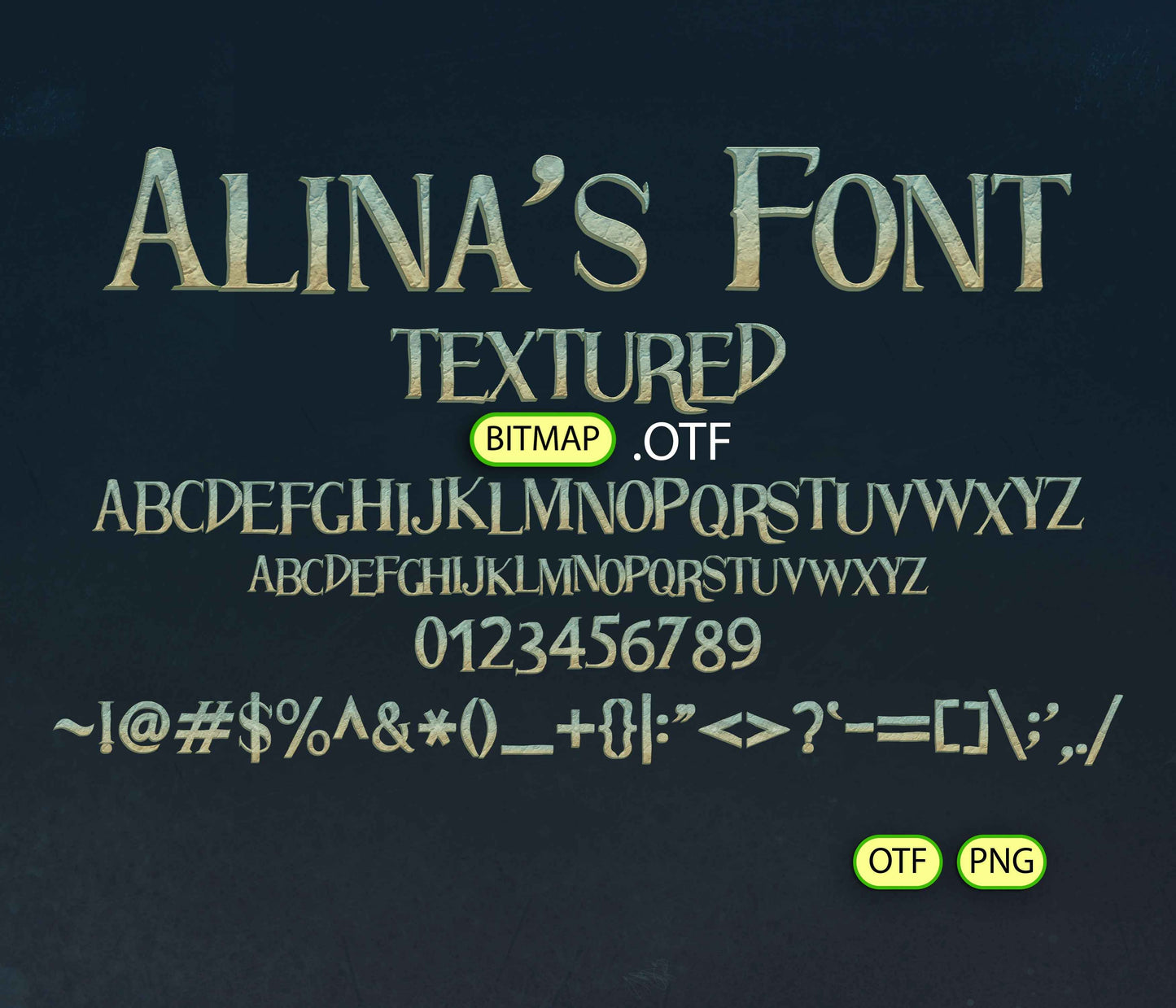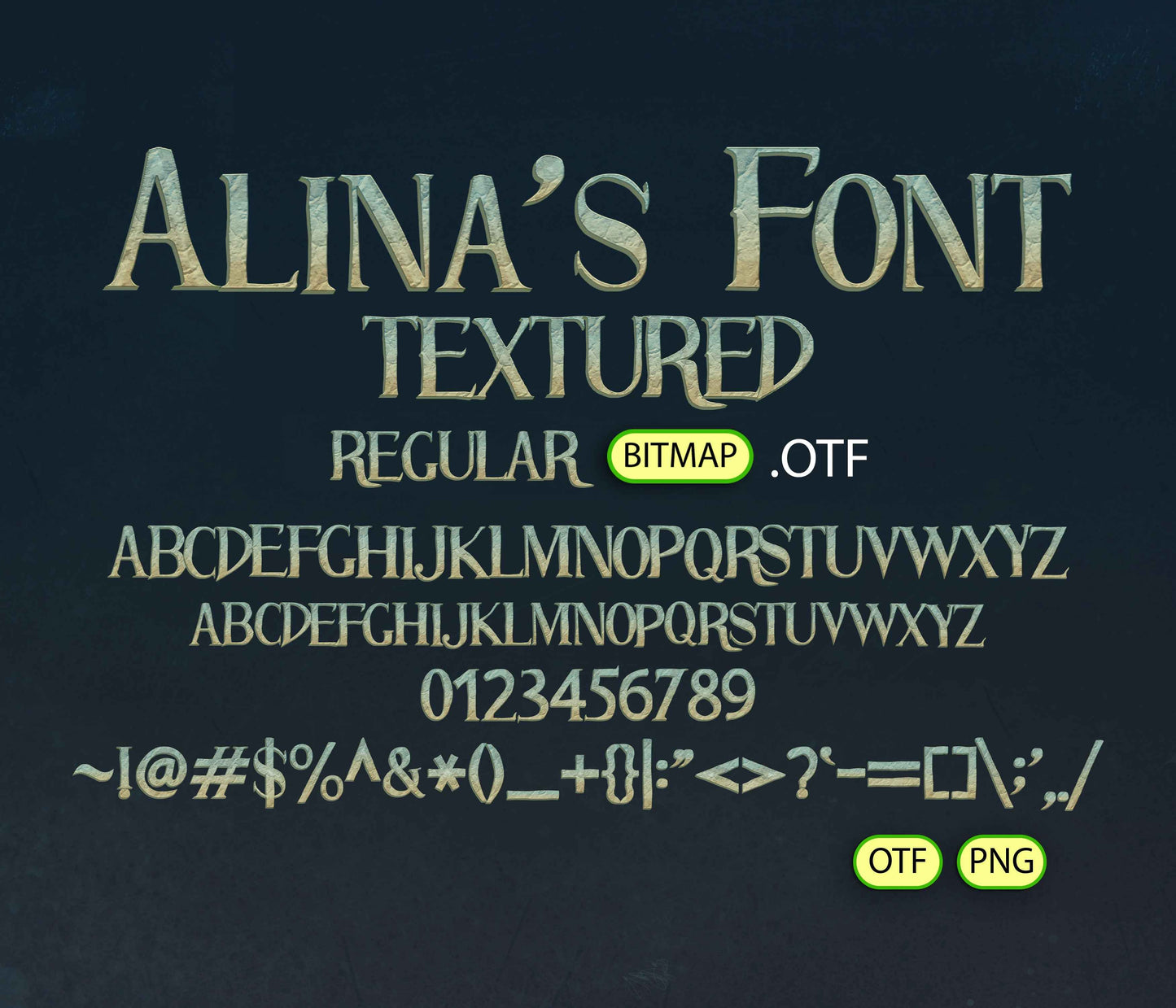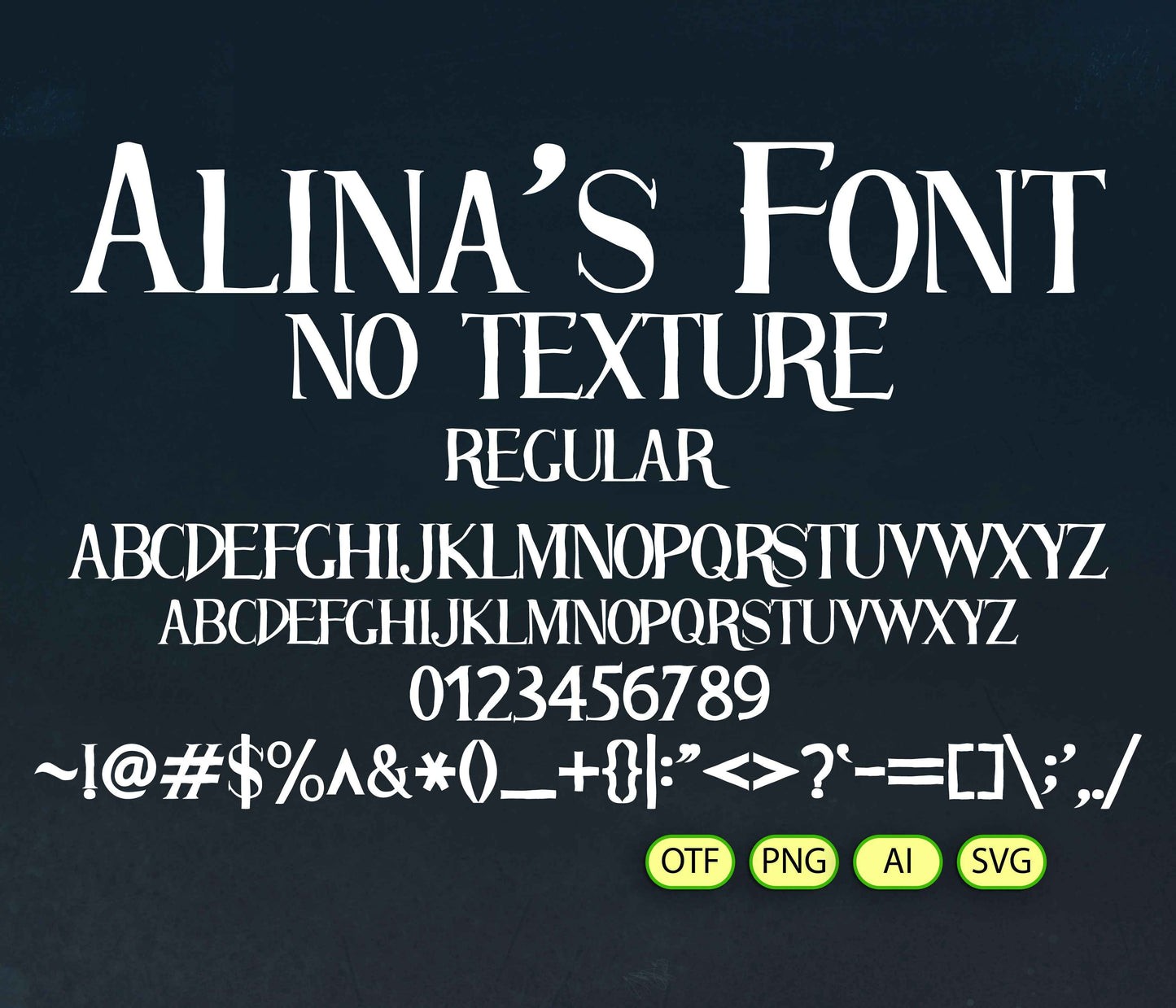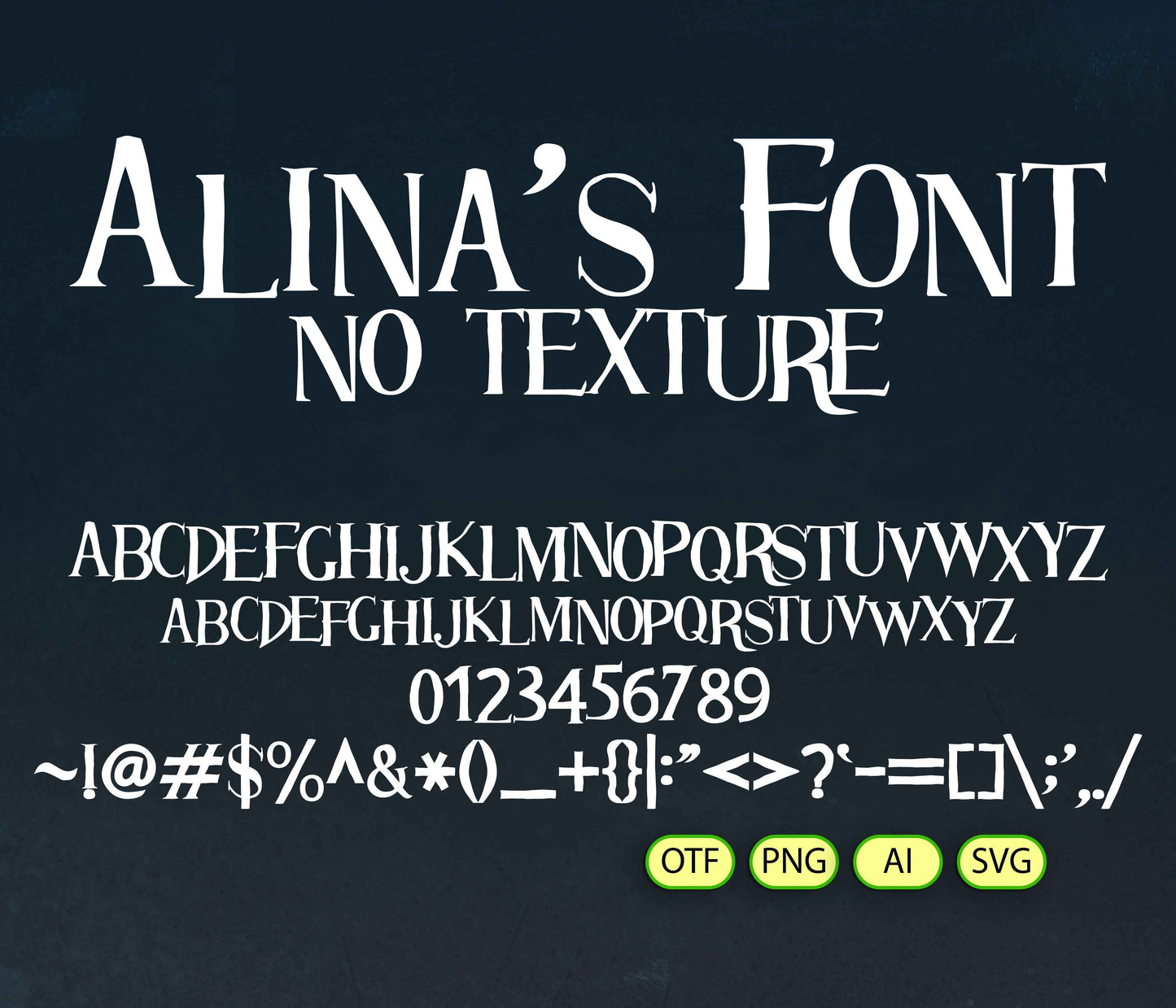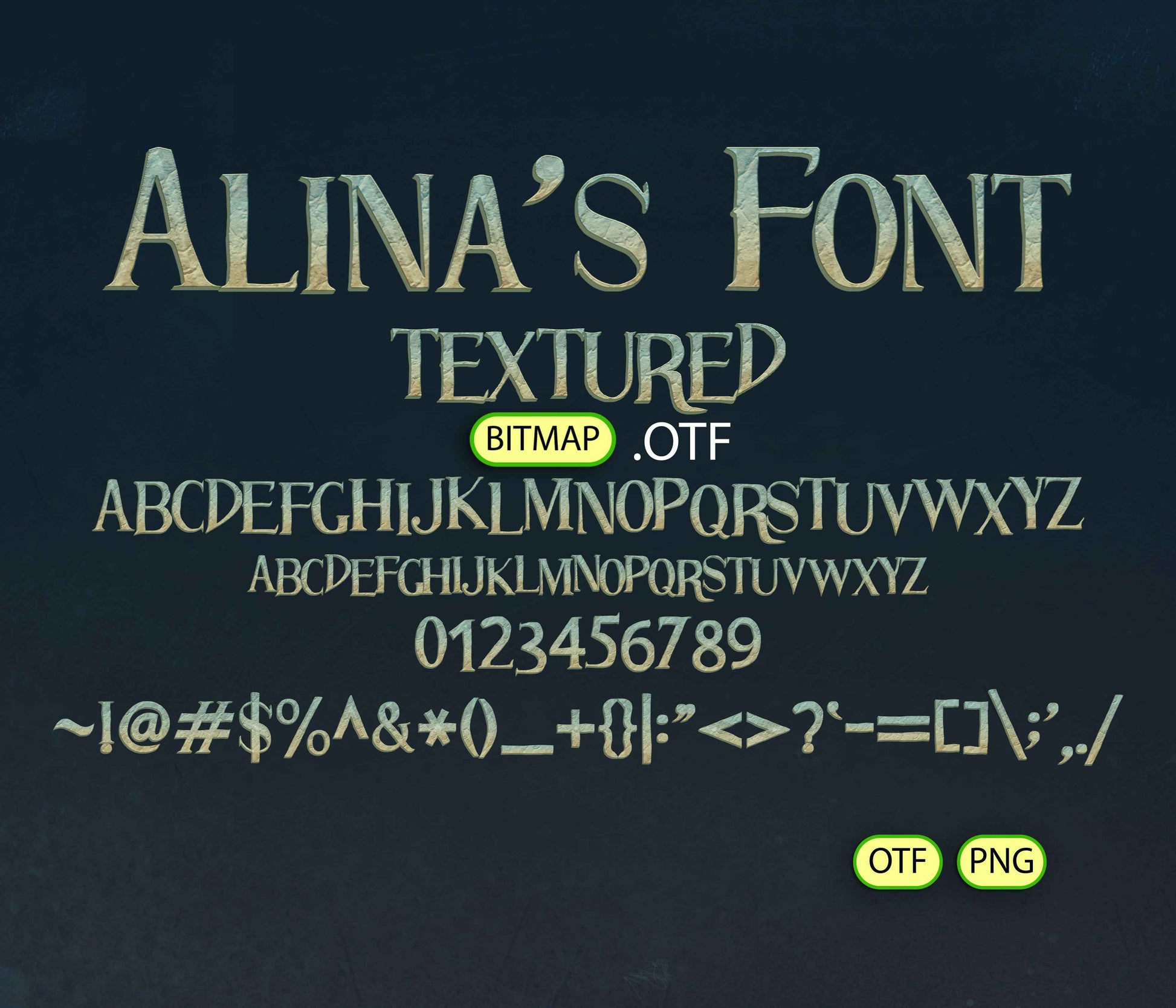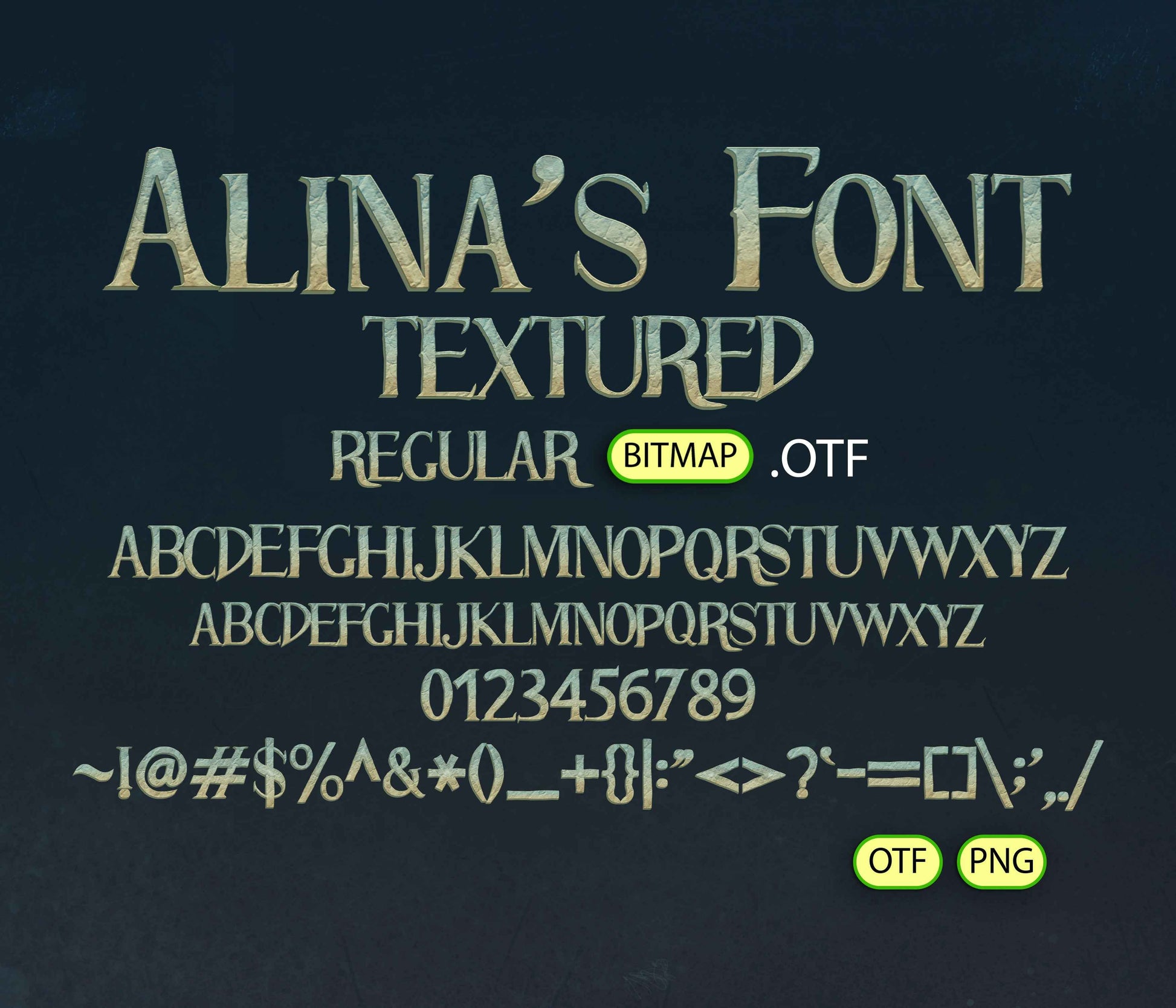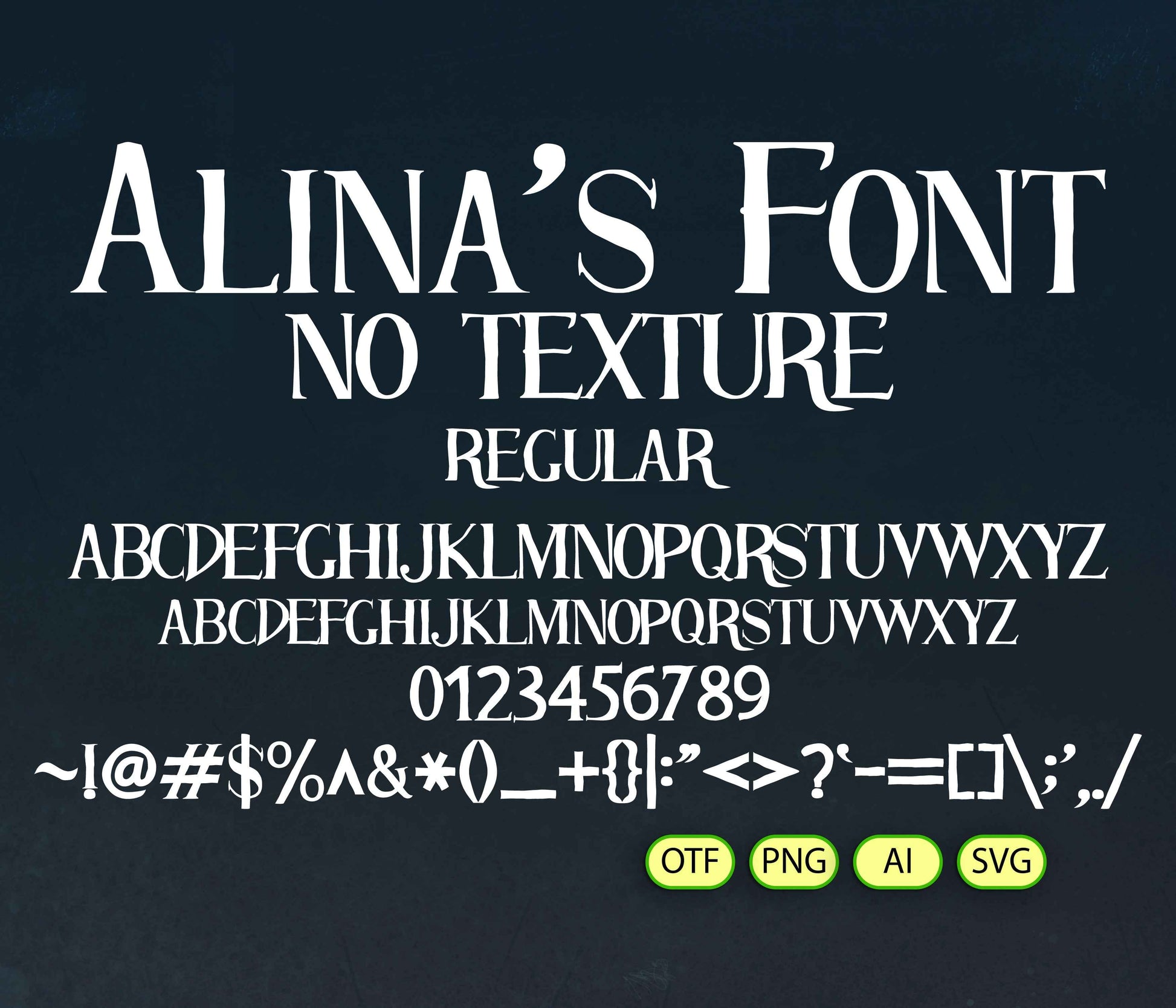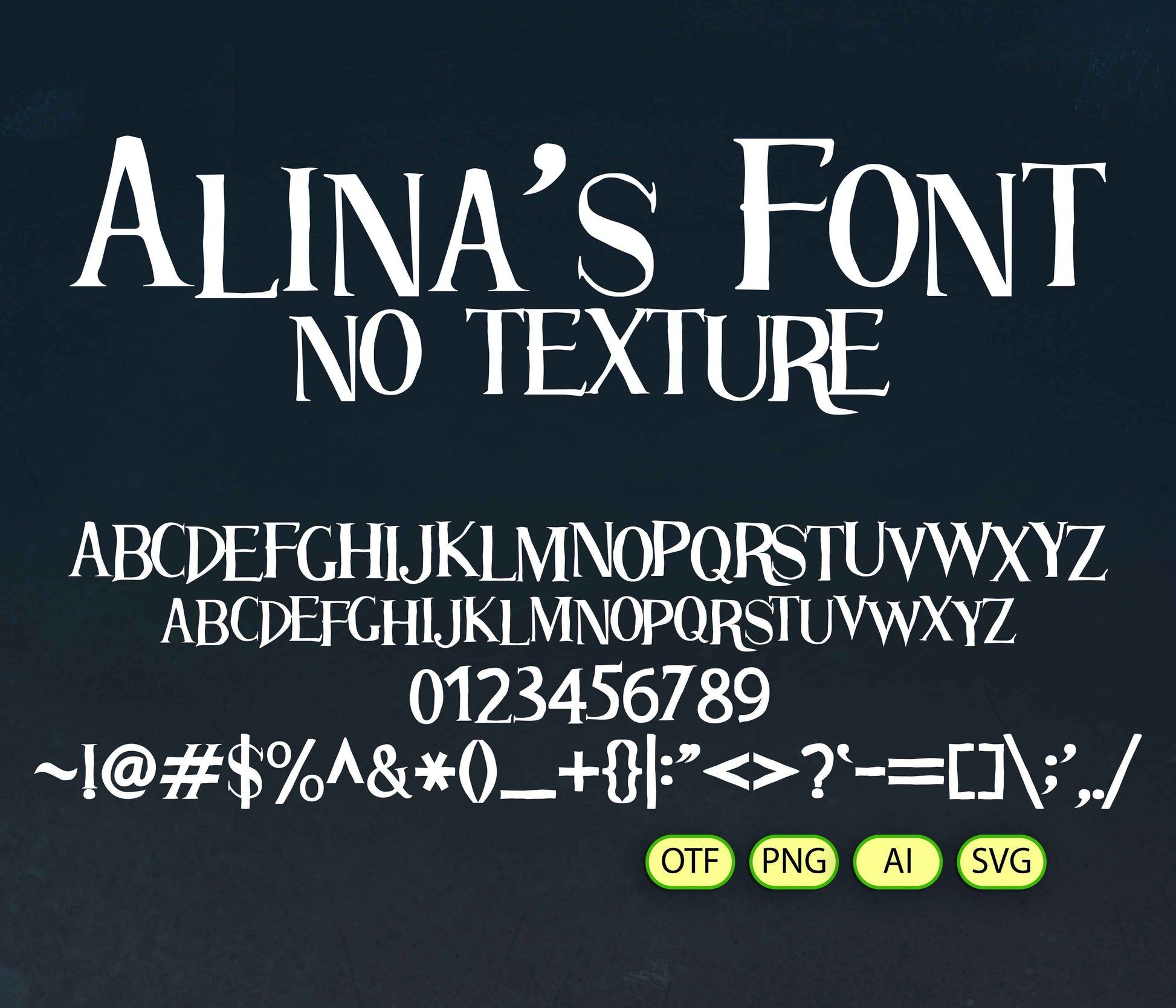
Magical Journey to Enchanted Land Font Textured
Embark on a magical journey to Enchanted Land with our inspired font, a tribute to the timeless tale of adventure, youth, and imagination. This font captures the whimsical and adventurous spirit of the boy who never grows up and his enchanting world. Every character embodies the freedom and joy of flying through the starry night sky to a land where pirates, mermaids, and lost boys await. It’s not just a collection of letters; it's a gateway to the eternal magic of childhood and the wondrous adventures that define this story.
What is the Enchanted Land Font?
Imagine a typeface that encapsulates the playful, daring, and dreamlike elements of the beloved story. Our font reflects the whimsical and adventurous aesthetics of this journey. It includes a comprehensive character set, covering alphabets, numbers, and special symbols, offering a versatile toolkit for various creative projects that evoke the charm and wonder of this classic tale.
Applications of the Enchanted Land Font:
The Enchanted Land font is versatile and perfect for a wide array of creative and commemorative uses:
1. Children’s Party Invitations: Ideal for creating enchanting invitations for a themed party.
2. Storybook Illustrations: Enhance children's books and storytelling materials with a touch of magic.
3. Theatrical Productions: Suitable for promotional materials for plays or musicals based on the story.
4. Custom Apparel: Design clothing and accessories inspired by the characters and themes.
5. Digital Content: Create captivating graphics and posts for social media and websites.
6. Educational Materials: Use in teaching resources to inspire creativity and imagination in young learners.
7. Personalized Stationery: Craft whimsical stationery sets for personal or gift use.
8. Home Decor: Design wall art, decals, and other decor items that capture the spirit of the story.
9. Event Signage: Create signs and banners for events with a magical, adventurous theme.
10. Creative Art Projects: Ideal for scrapbooking, crafting, and artistic projects inspired by the tale.
• Textured and Non-Textured Variants: Choose between a playful textured style or a smooth, non-textured version for different design needs.
• Extensive Character Set: Offers a wide range of characters for comprehensive design possibilities.
The Enchanted Land-inspired font is more than just a typeface; it's an invitation to the world of imagination and adventure.